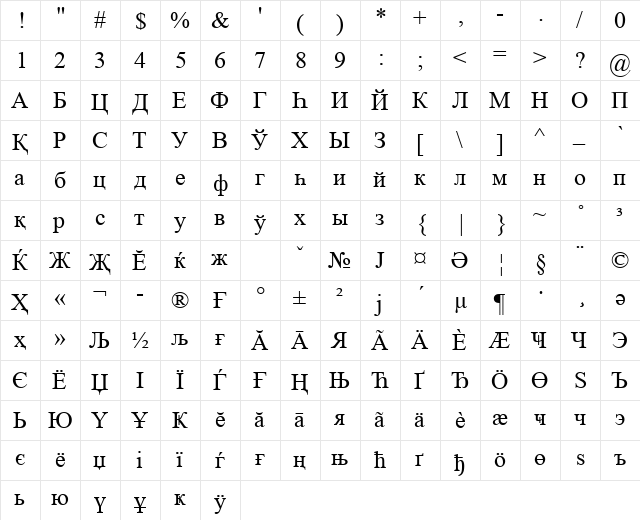
Liborsoft Cyrillic A Regular
Design Context for Liborsoft Cyrillic A Typeface
Liborsoft Cyrillic A takes a measured approach to typography — its balanced proportions and neutral character make it a reliable workhorse for both digital and print work.